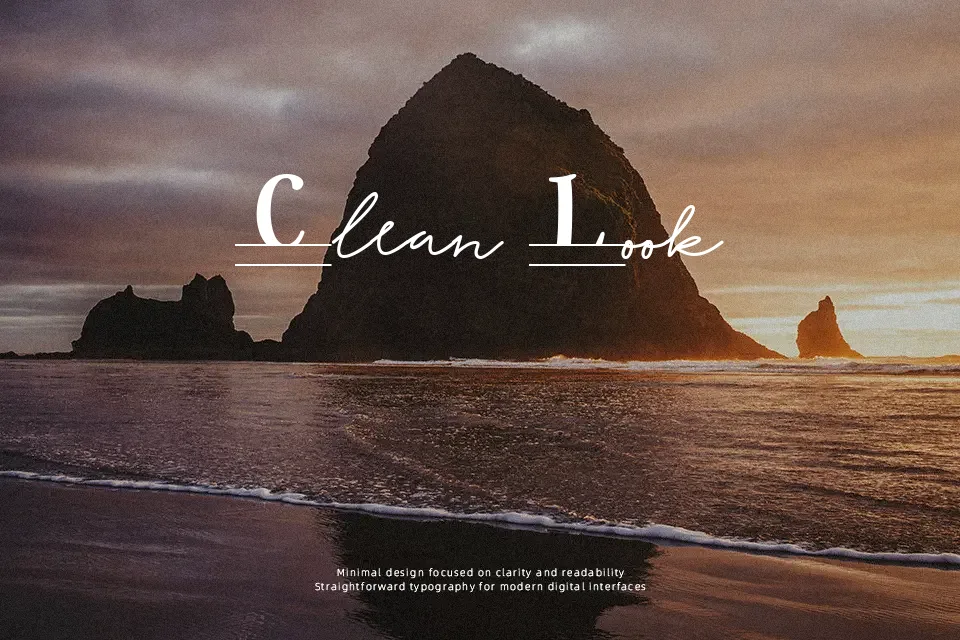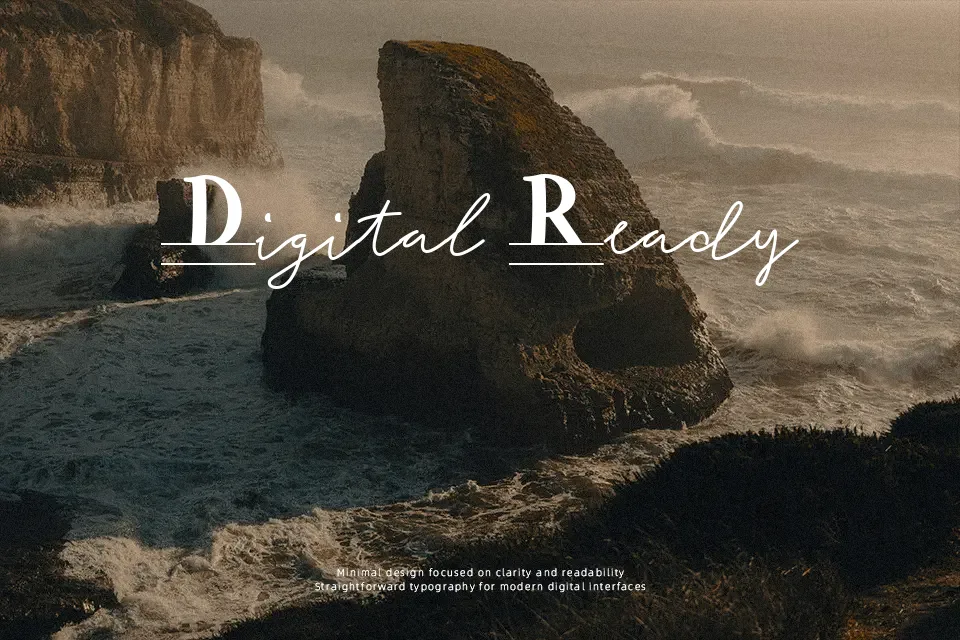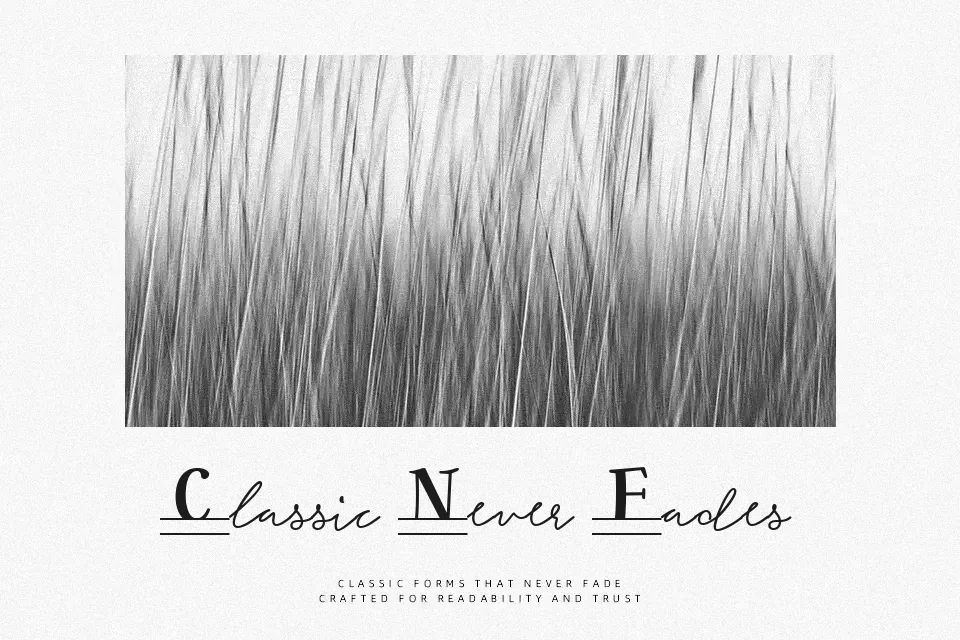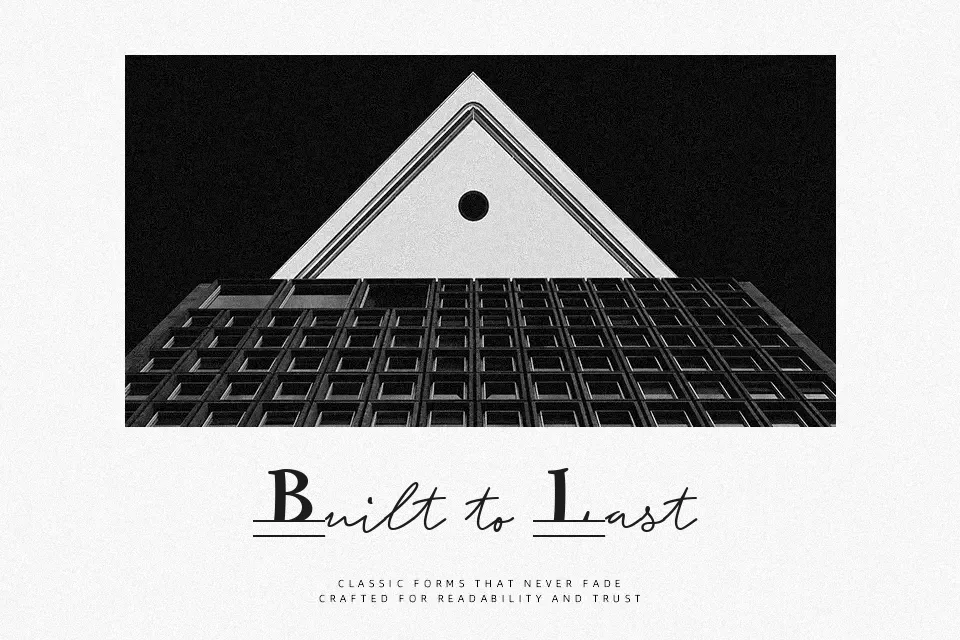
Be My Diamond Font
Designed by Misti's Fonts
Be My Diamond combines a serif monogram structure with refined, faceted shapes that echo the look of cut gemstones, giving every letter a polished, ornamental feel. The strokes are relatively bold with clear edges, so initials remain readable on items like tumblers, throw pillows, framed quotes, or bridal party gifts. Its overall impression is romantic and decorative rather than formal text, working well when you need a prominent set of initials or a short word mark that looks tailored and sentimental. It struggles in long paragraphs or small caption sizes, where the ornate details can feel busy and reduce legibility. Use it when you want a standout monogram or headline accent, but rely on a simpler companion font for body copy.
personalized wedding gifts and keepsakes
monogrammed tumblers and drinkware
initial-based decorative pillows and prints
short romantic word marks for gifts
long-running paragraph text
tiny labels or dense UI text
highly minimalist brand systems
Perfect for headline, invitation, and packaging, with a creative and decorative style.